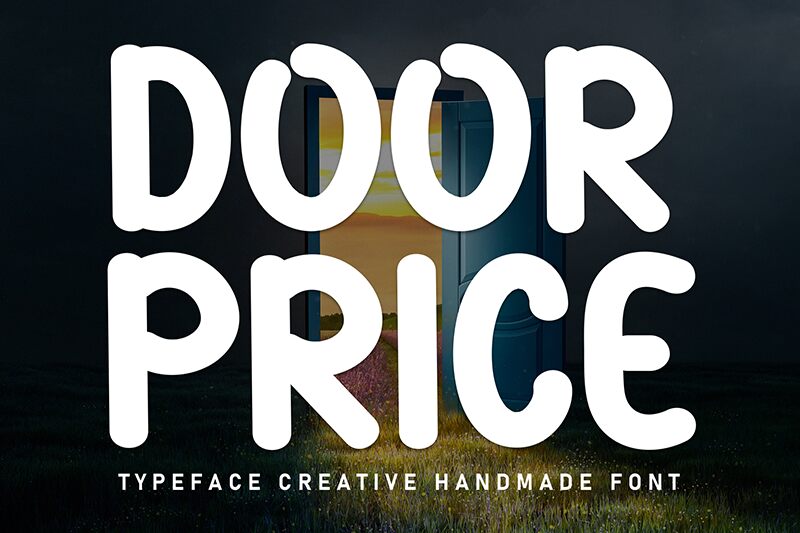
Door Price
Door Price font by Andi Moz is a bold brush font that brings a fun, approachable, informal vibe to your designs. Its cartoon-like feel and retro-inspired style make it particularly well-suited for quirky projects. With organic design and rounded curves, this free-to-use typeface really captures attention.
Use this unique font for logos, cartoons, posters, invitations, packaging designs, social media posts, and product labels. Door Price can give an informal edge to quotes and greeting cards or enhance arts & crafts projects with its distinctive playful style.